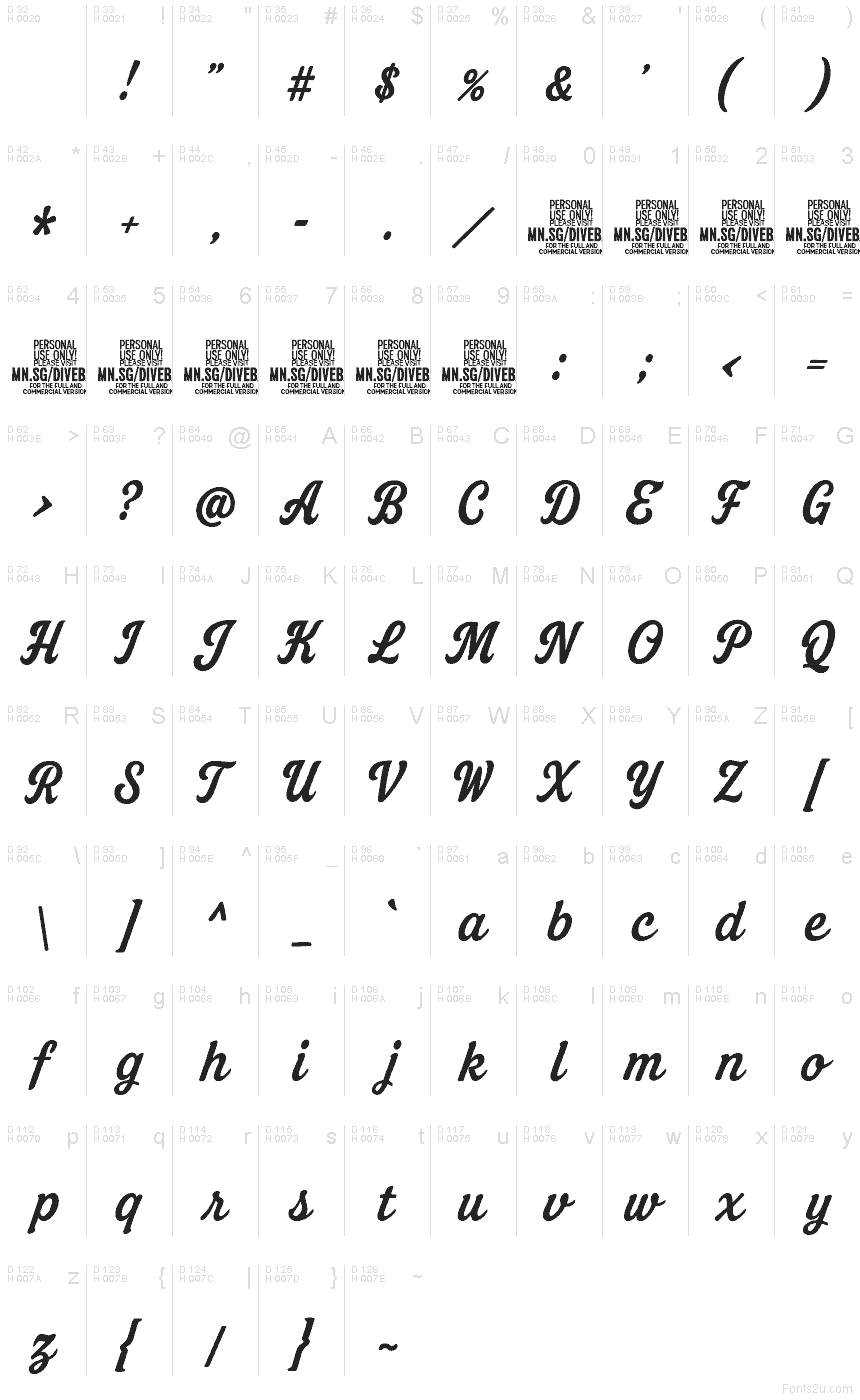
Divebar Vintage PERSONAL USE Regular
Divebar Vintage font by Mans Greback is a stylish brush script font full of the charm of classic bar signage. The expressive typeface’s flowing curves evoke a nostalgic yet professional feel in projects. Divebar Vintage is elegant, cohesive, and ideal for designs that require an appealing retro appeal.